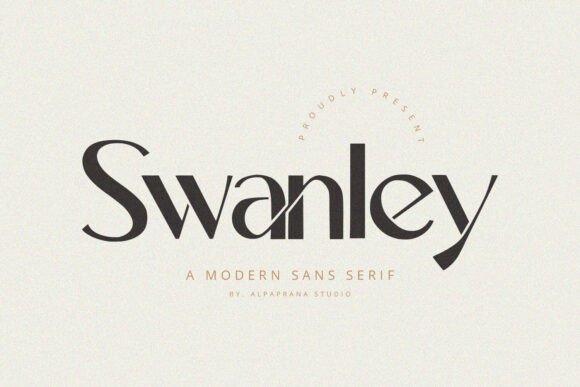
Introducing Swanley Font: The Modern Sans Serif with Elegant Feels
In the world of typography, fonts play a crucial role in conveying messages, expressing emotions, and creating visual identities. With the ever-evolving design landscape, the demand for modern and elegant fonts has increased significantly. This is where Swanley Font comes into play – a contemporary sans serif font that exudes elegance and sophistication. In this article, we’ll explore the features, benefits, and usage of Swanley Font, and why it’s perfect for various design projects.
Key Features of Swanley Font
- Modern Sans Serif Design: Swanley Font boasts a sleek and modern sans serif design, making it perfect for projects that require a clean and minimalist look.
- Elegant and Sophisticated: The font’s elegant and sophisticated feel makes it ideal for high-end branding, luxury packaging, and premium design projects.
- Highly Versatile: Swanley Font is designed to be highly versatile, making it suitable for a wide range of design projects, from magazines and posters to book covers and t-shirts.
Perfect for Various Design Projects
Swanley Font’s versatility makes it an excellent choice for various design projects, including:
- Magazines: Create a stunning magazine with Swanley Font as your headline or body text font.
- Packaging: Elevate your packaging design with Swanley Font’s elegant and modern feel.
- Posters: Design eye-catching posters with Swanley Font, perfect for advertising, events, or promotions.
- Shopping Bags: Add a touch of elegance to your shopping bags with Swanley Font.
- T-Shirts: Create stylish and modern t-shirt designs with Swanley Font.
- Book Covers: Use Swanley Font to create captivating book covers that grab attention.
- Photography: Enhance your photography with Swanley Font, perfect for adding text or captions to your images.
- Special Events: Make your special events, such as weddings or conferences, more memorable with Swanley Font.
The Benefits of Using Swanley Font
Swanley Font offers several typographic benefits that make it an excellent choice for designers:
- Improved Readability: Swanley Font’s clean and modern design ensures excellent readability, making it perfect for body text and headlines.
- Enhanced Visual Appeal: The font’s elegant and sophisticated feel adds a touch of luxury to your designs, making them more visually appealing.
- Flexibility: Swanley Font is highly versatile, allowing you to use it for a wide range of design projects.
How Swanley Font Compares to Other Fonts
In the market, there are many modern sans serif fonts available, but Swanley Font stands out from the rest. Here’s how it compares to other popular fonts:
- Unique Elegance: Unlike other modern sans serif fonts, Swanley Font boasts a unique elegance that sets it apart from the competition.
- More Versatile: Swanley Font is more versatile than other fonts, making it suitable for a wide range of design projects.
- Improved Readability: Swanley Font’s readability is superior to other fonts, making it perfect for body text and headlines.
Tips for Using Swanley Font Effectively
To get the most out of Swanley Font, here are some tips to keep in mind:
- Pair it with Other Fonts: Experiment with pairing Swanley Font with other fonts to create a unique and visually appealing typography.
- Use it for Headlines and Body Text: Swanley Font is perfect for both headlines and body text, making it a great choice for magazines, books, and other long-form content.
- Adjust Font Sizes and Weights: Experiment with different font sizes and weights to create visual hierarchy and add emphasis to your text.
In conclusion, Swanley Font is a modern sans serif font that offers elegance, sophistication, and versatility. Its clean and modern design makes it perfect for a wide range of design projects, from magazines and packaging to posters and t-shirts. With its excellent readability, enhanced visual appeal, and flexibility, Swanley Font is an excellent choice for designers looking to elevate their designs.